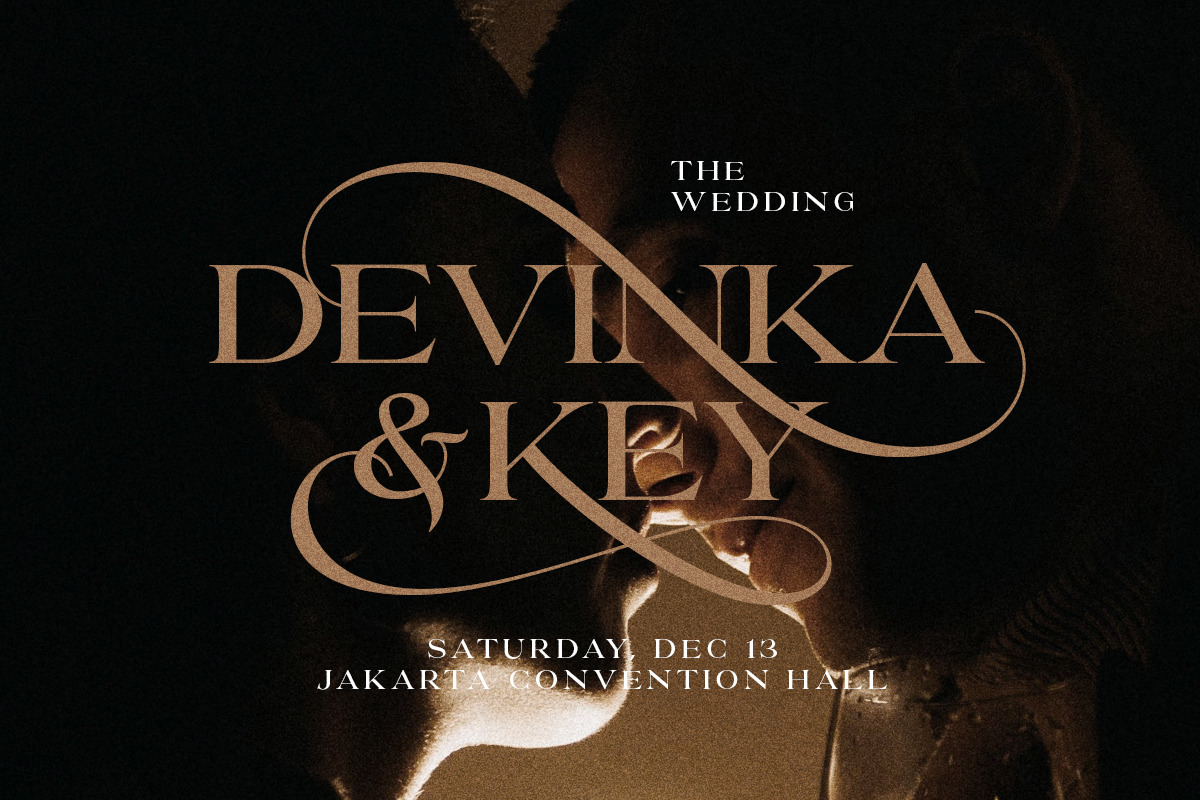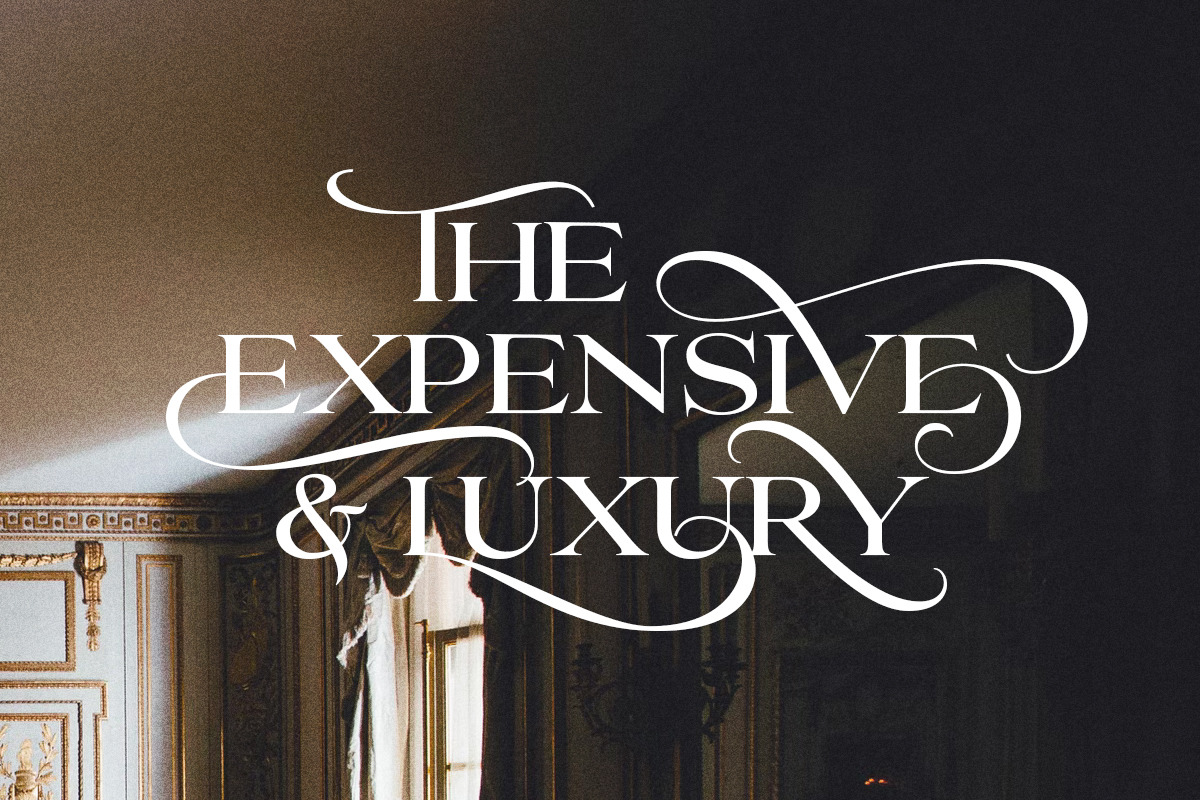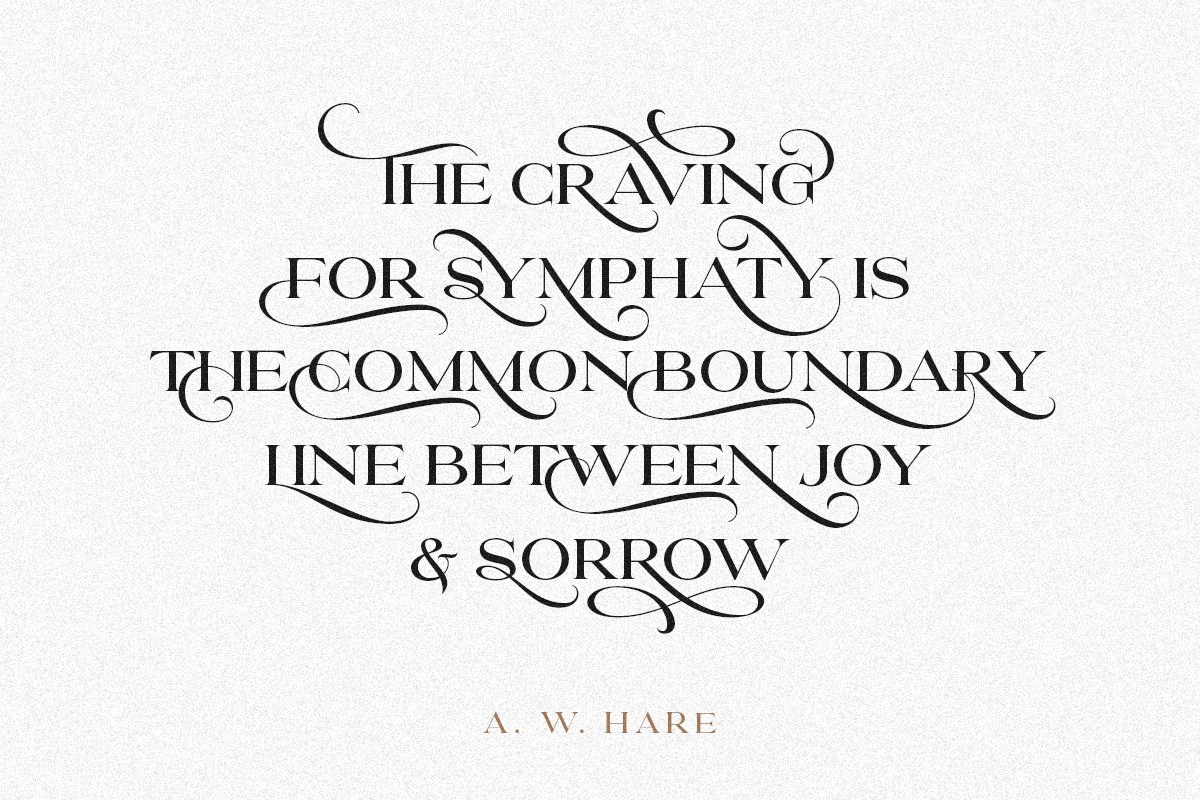
Introducing, Proyale – an elegant and stylish serif with a bunch of alternates! Proyale is a classic, elegant and styish all caps serif with a bunch of alternates up to 7 stylish set for each characters that will make your presentation or logo even more stunning and stand out! You can use this captivating font for many purpose such as magazine, branding, poster, or even for wedding invitation. Proyale also support Multi Language.
- All Uppercase
- Number & Symbol
- Multi-language
- Alternates for each character up to 7 set